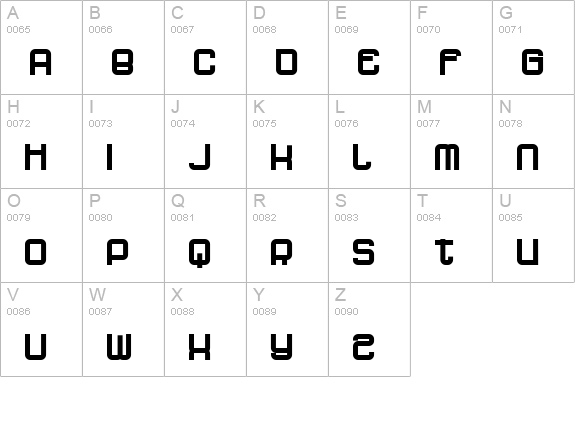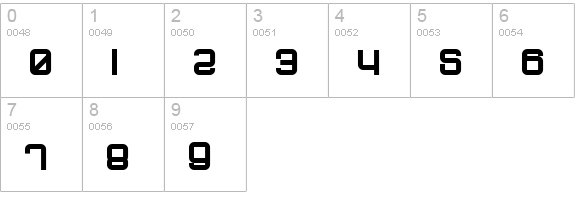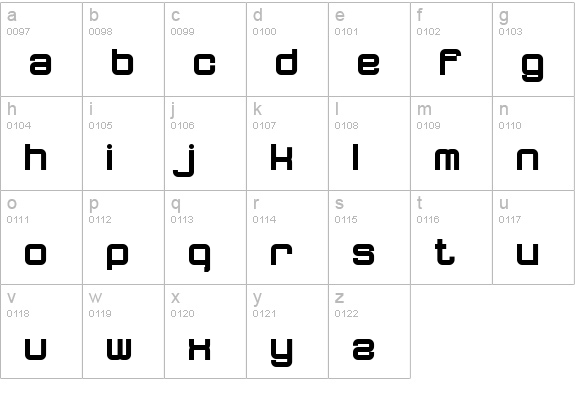
dopenakedfoul phat Font Details
The dopenakedfoul phat font is a striking and bold typeface designed to make a statement. Its edgy and modern design exudes confidence and style, making it perfect for eye-catching headlines, posters, and branding projects. The thick, exaggerated letterforms of this font demand attention and add a touch of urban flair to any design. What sets dopenakedfoul phat font apart is not just its unique design, but also the fact that it is completely free to download. Yes, you read that right - this incredible font is available for free at FontsMarket.com, making it accessible to designers and creatives of all levels. Don't miss out on the opportunity to add this dynamic font to your collection and take your designs to the next level. Download dopenakedfoul phat font today and unleash your creativity!